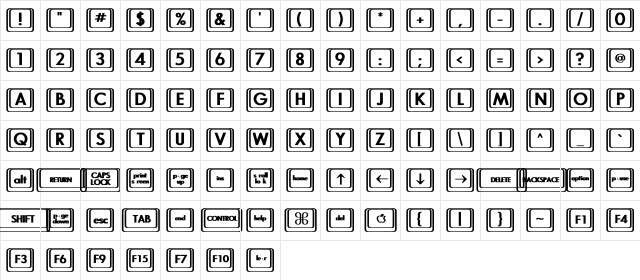
Compkey2 Bold Regular
Design Context for Compkey2 Bold Typeface
Compkey2 Bold offers clean, dependable letterforms without strong stylistic allegiance, making it a practical choice for designers who need flexibility. Its bold stroke weight gives it real presence on the page.